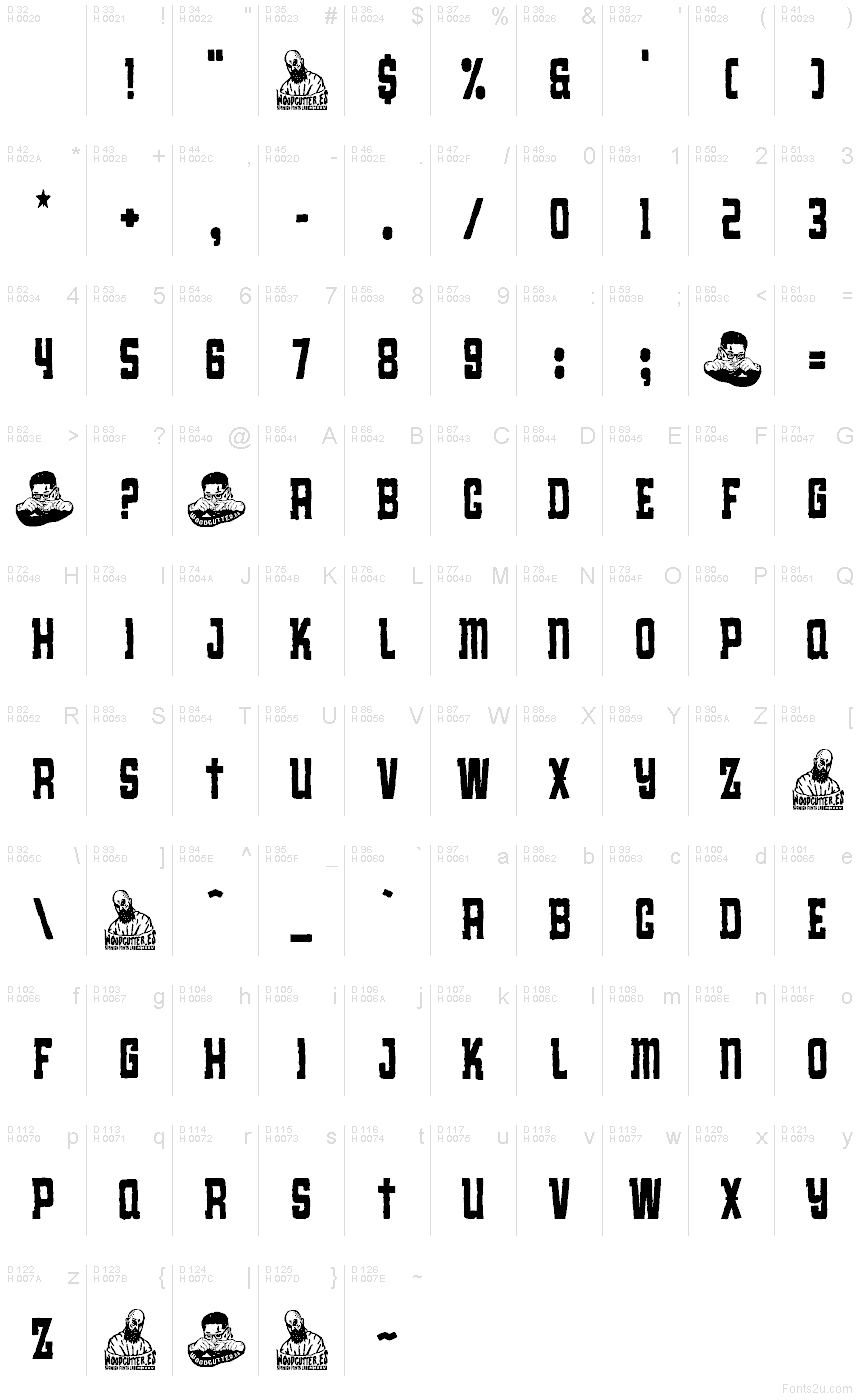
Fake Red Nation
Fake Red Nation font by Woodcutter is a bold and condensed display typeface with an eroded, rugged texture. It carries a strong impact and an edgy aesthetic that exudes a distressed appearance. This grunge-style font is ideal for projects that require a unique and bold presence with expressive influences.